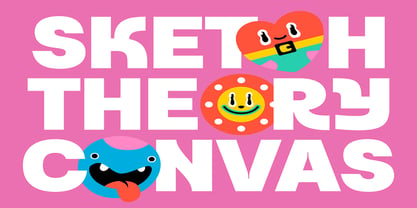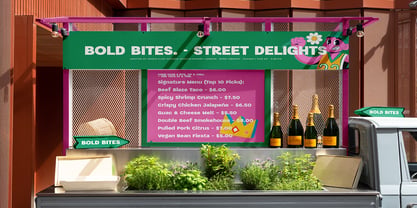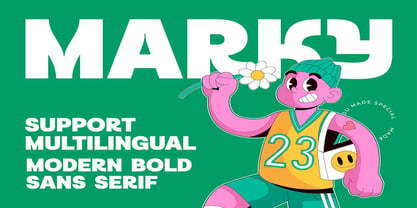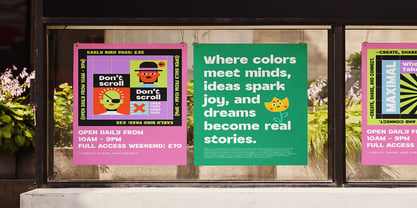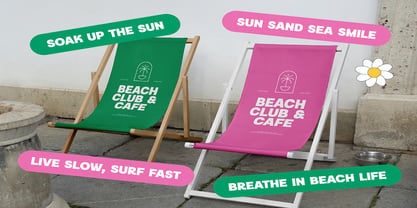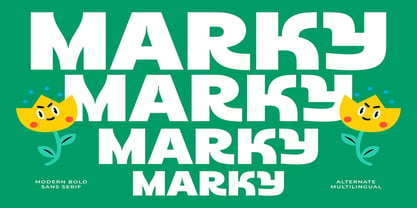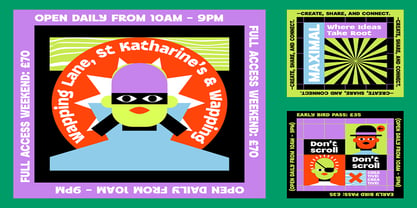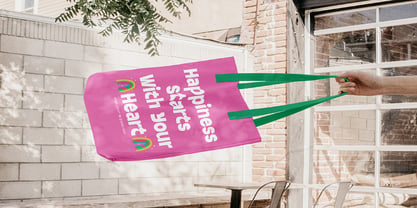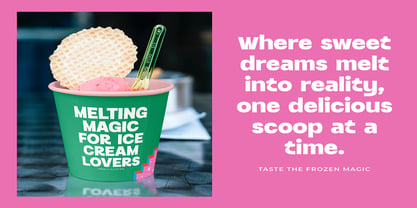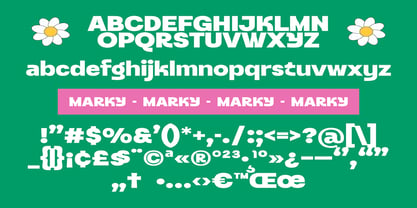
Marky
by Jaruka Creative
Introducing MARKY — The Ultimate Modern Bold Sans Serif
Make your designs pop with MARKY, a vibrant, high-impact, modern, bold sans serif font engineered to command attention. Designed for creators who aren't afraid to stand out, MARKY blends ultra-thick letterforms with a playful, contemporary edge that brings an instant burst of joy and energy to any project.
This typeface features thick, expressive strokes and distinct stylized geometric counters (look at that unique lowercase "y" and "g"!) that give it an unmistakable, friendly personality.
Key Features
• Unmissable Bold Weight: Perfect for massive, eye-catching headlines, trendy poster layouts, and storefront signage as seen in the street festival mockups.
• Full Multilingual Support: Ready for global branding, MARKY includes an extensive character set covering a wide range of international characters and symbols, beautifully mapped out.
• Complete Layout Control: Includes full upper and lowercase character sets, standard punctuation, currency symbols, and standard numerical glyphs.
• Creative Character Integrations: MARKY's spacious loops and solid stems let you seamlessly weave fun illustrations directly into the typography, as demonstrated with the quirky characters.
Versatile Application
MARKY is the ultimate chameleon for bold, modern branding. It transitions effortlessly across digital and physical spaces:
• Food & Beverage Branding: Create irresistible packaging, ice cream cups, and food truck menus.
• Merchandise & Apparel: Perfect for statement tote bags, street fashion labels, and lifestyle gear.
• Event & Festival Promotion: Ideal for event scheduling, entry badges, and experimental geometric flyers.
• Summer & Cafe Vibes: Bring casual, sunny warmth to beach clubs, juice bars, and outdoor hospitality branding.
If your project demands typography that is loud, proud, and beautifully structured, MARKY is ready to make it special.